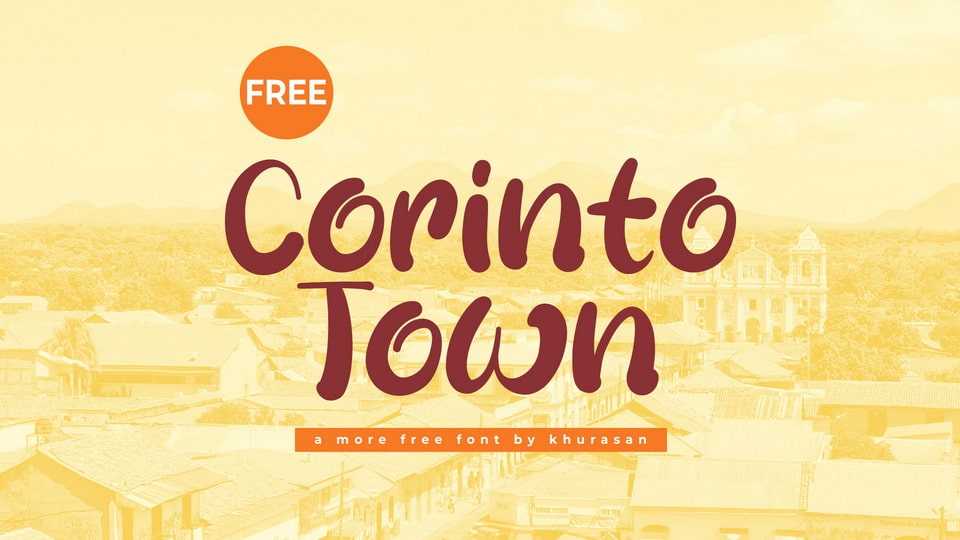
Download Corinto Town font, a playful and natural hand-drawn typeface that radiates warmth and creativity. Its smooth contrast strokes create a harmonious flow, capturing the charm of handwritten lettering.